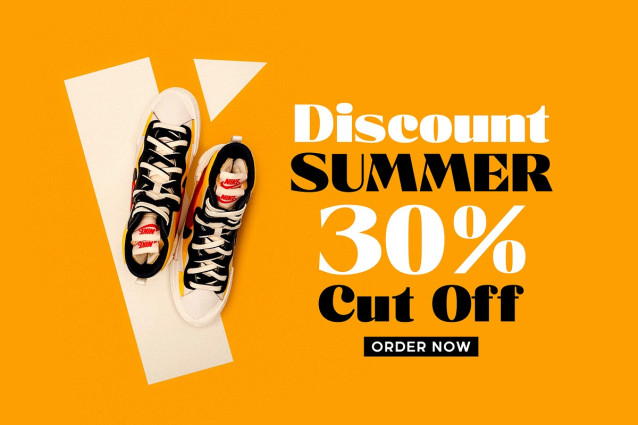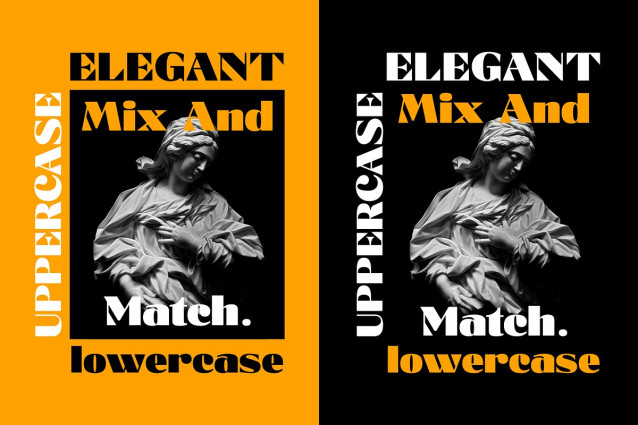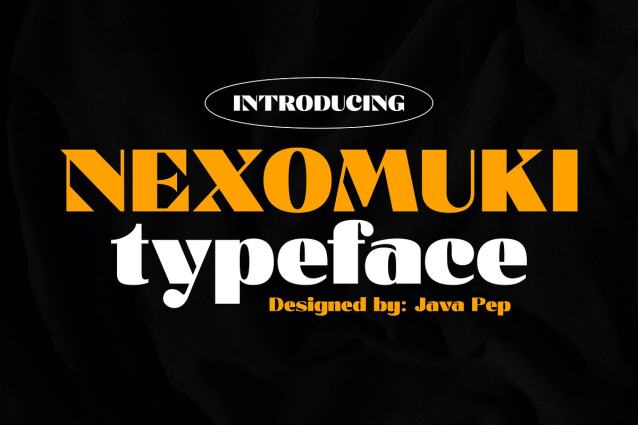
Nexomuki Font
Nexomuki Font, a new modern sans serif font. Nexomuki is created with a modern, bold yet elegant feel. The perfect combination of uppercase and lowercase characters is suitable for your project design such as logos, branding, headline text, advertising, slogans, quotes, magazines, publications, etc. This font is now multilingual with more than 20 different languages.